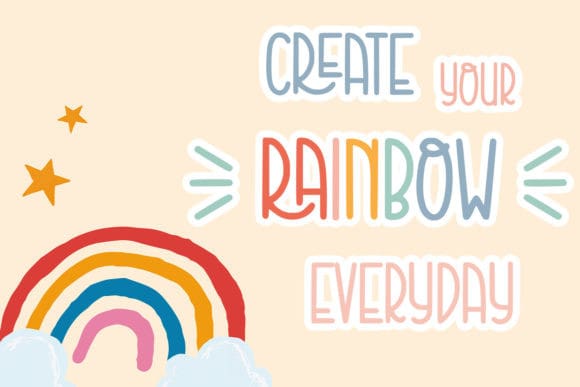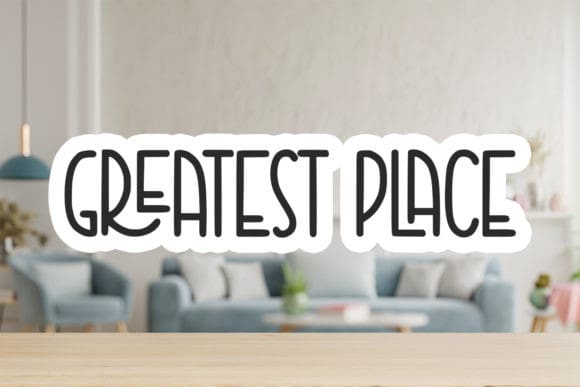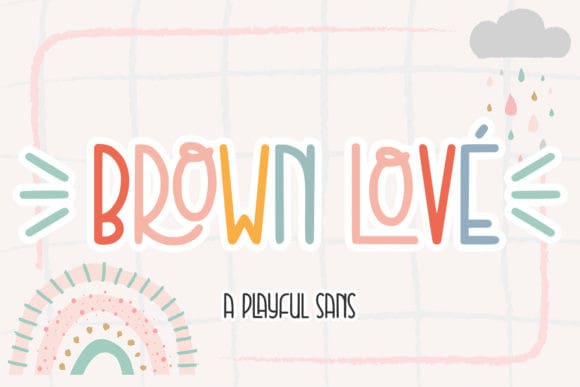
Brown Love Font
Brown Love Font is a playful and cute handwritten font. It is great for t-shirt designs, quotes, mugs, tote bag designs, cards, banners, social media, and any other craft projects.